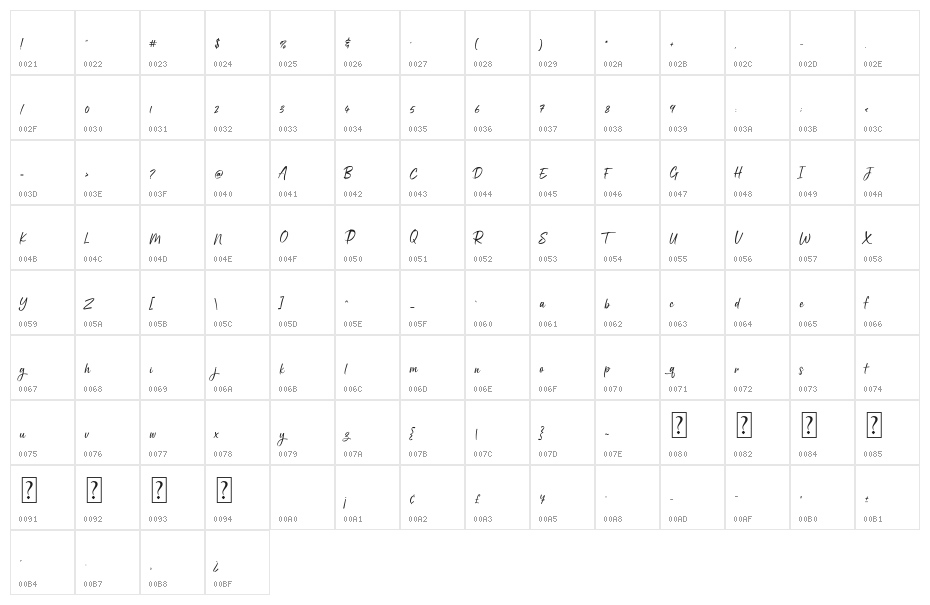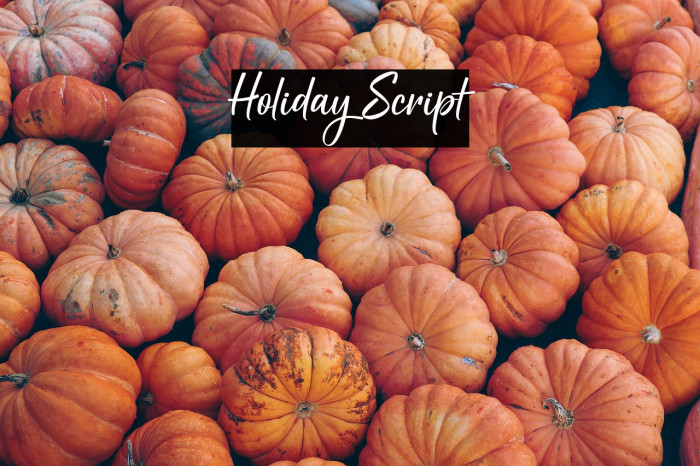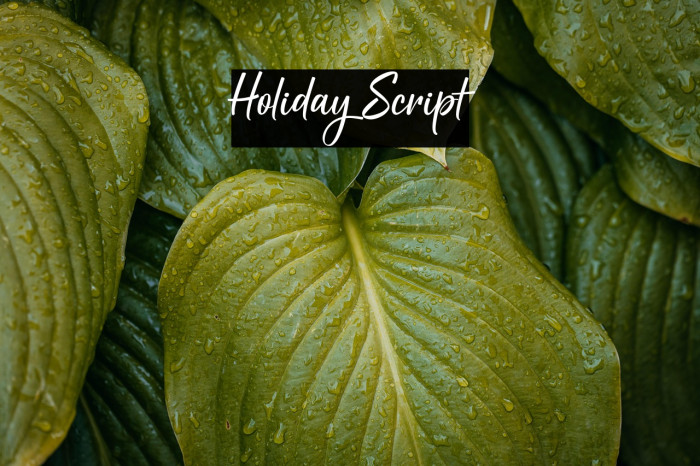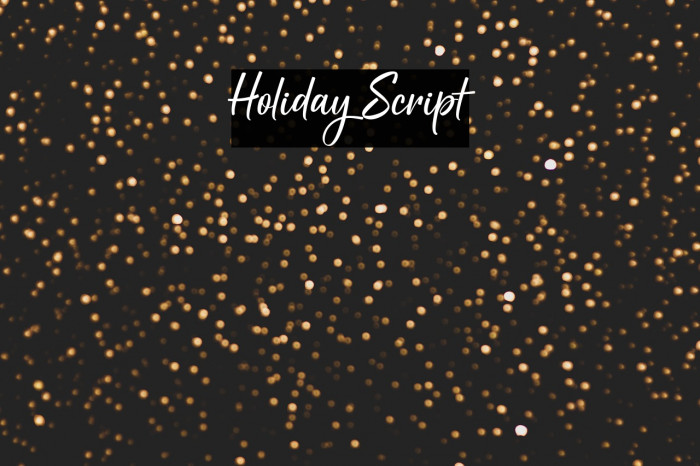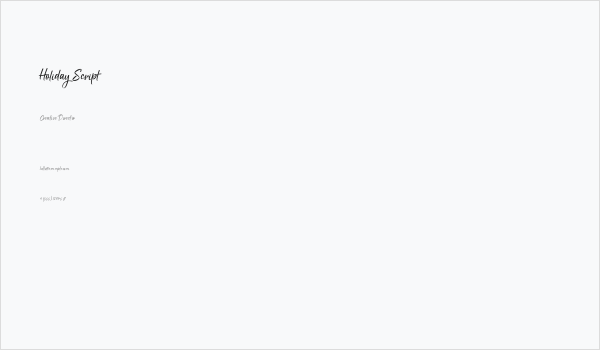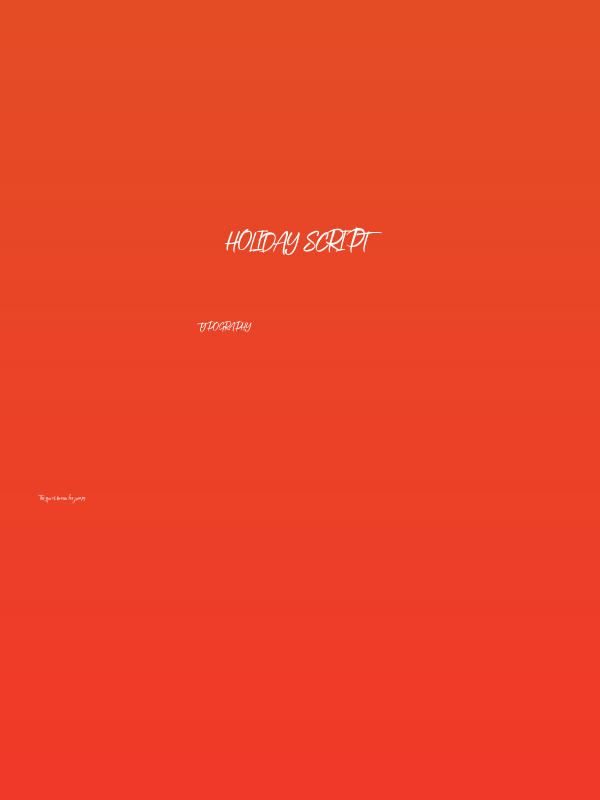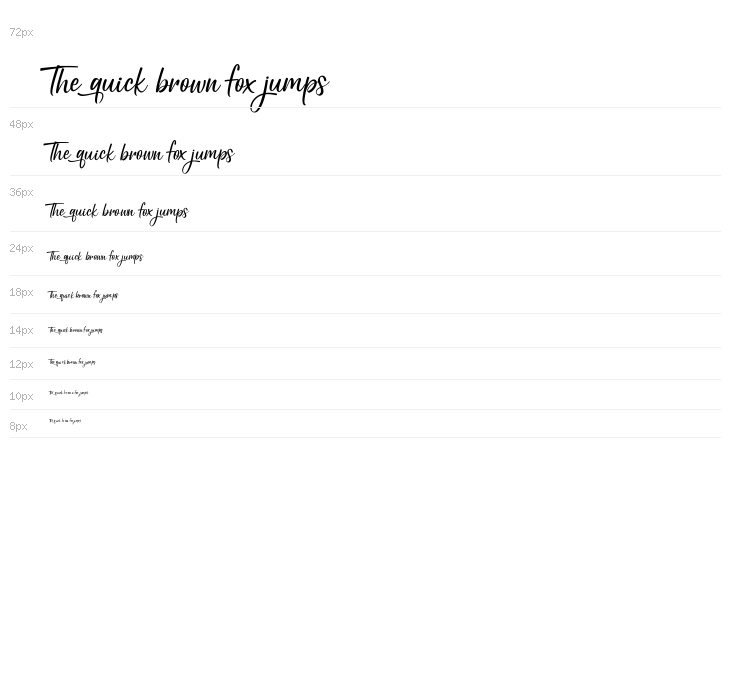
Holiday Script Font
Holiday Script Description
This font exudes a lively and festive spirit, characterized by its flowing, cursive style that mimics elegant handwriting. The letters are connected with smooth, sweeping strokes, giving it a sense of movement and grace. The uppercase letters are bold and prominent, while the lowercase letters maintain a consistent flow, enhancing readability. The numerals and special characters are crafted with the same fluidity, ensuring a cohesive look across all text elements. This font is perfect for adding a personal touch to any design, making it ideal for invitations, greeting cards, and other celebratory materials.
| Use Case | Headlines, Logos, Invitations |
| Proposed Projects | Ideal for invitations, greeting cards, holiday promotions, and festive branding. |